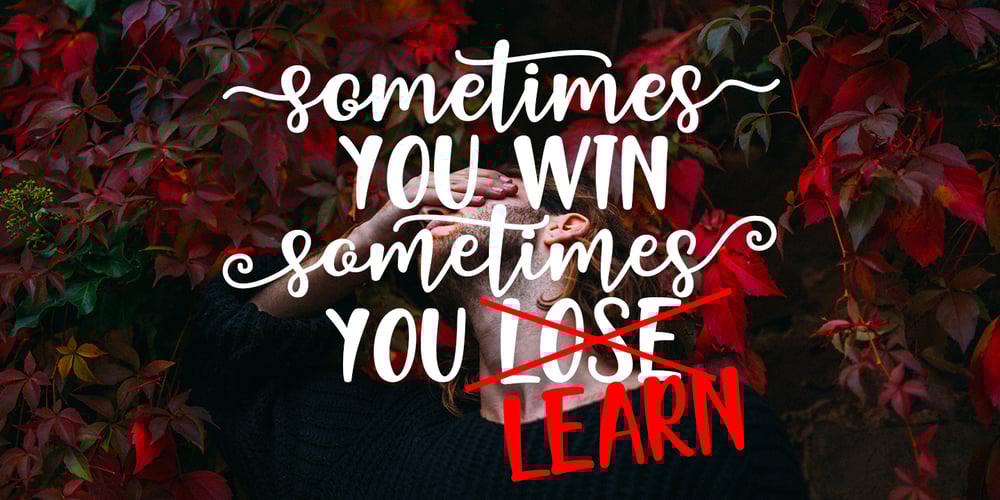
Naishila
Naishila font
Naishila Font Family was designed by Juni Fadil Putra and published by FadeLine Studio. Naishila contains 2 styles and family package options. Introducing Naishila. This new font family includes a caps and script. Naishila is a lovely and sweet font duo with a dancing baseline. You will receive the regular font (not dancing) while the script comes with stylistic sets and ligatures. Like my other fonts, Naishila is made to meet the growing market of design today. This font is suitable for use in design styles such as watercolor, minimalist, flat, modern design, etc. With this font duo, you can very easily combine. Surely you can make something perfect for your design. Naishila will look gorgeous on cards, mugs, quotes, posters, shopping bags, logo’s, t-shirts, branding, book covers, birthday invitations, greeting cards, and all your other lovely projects.